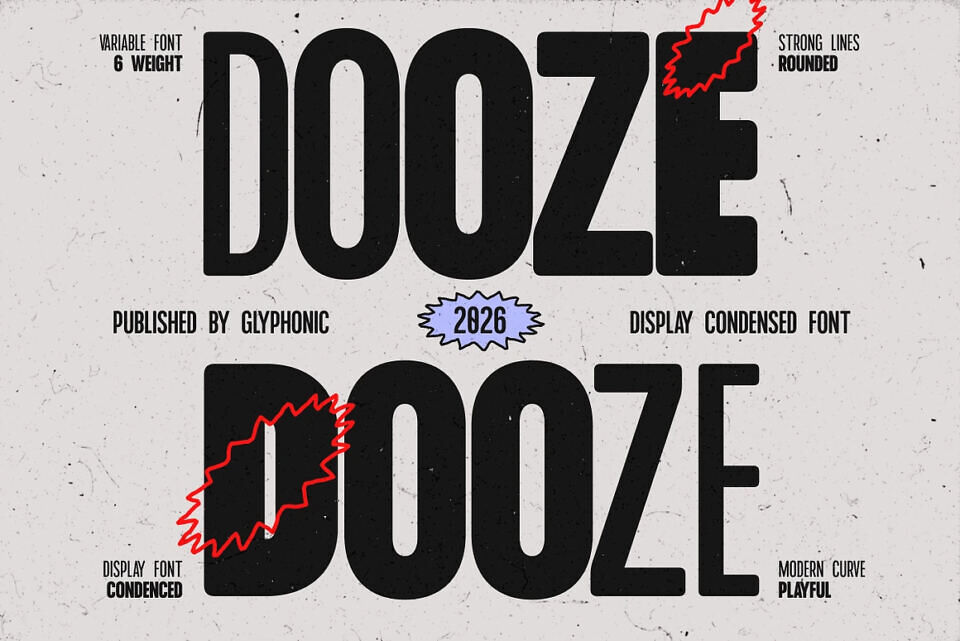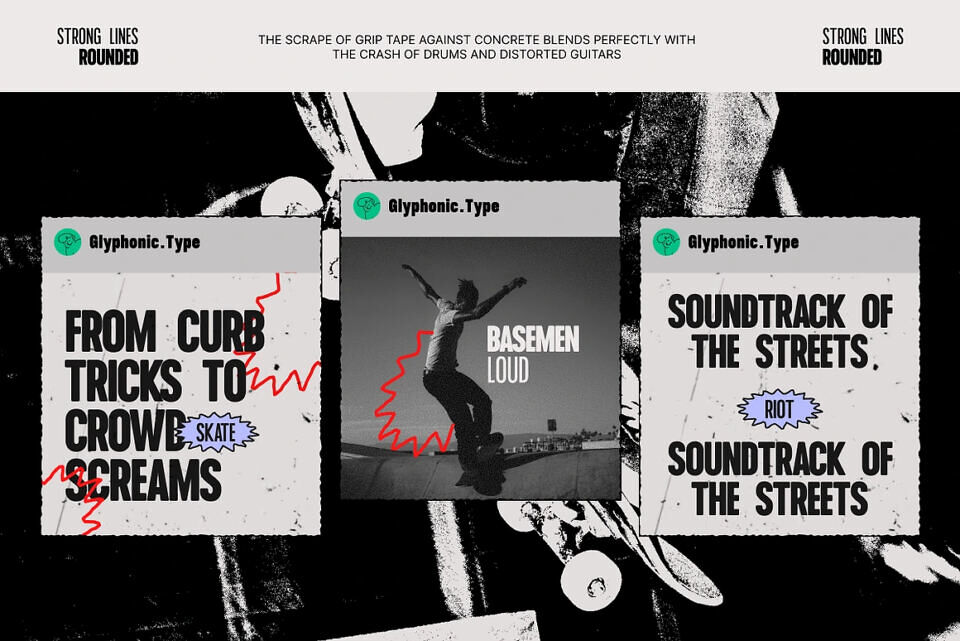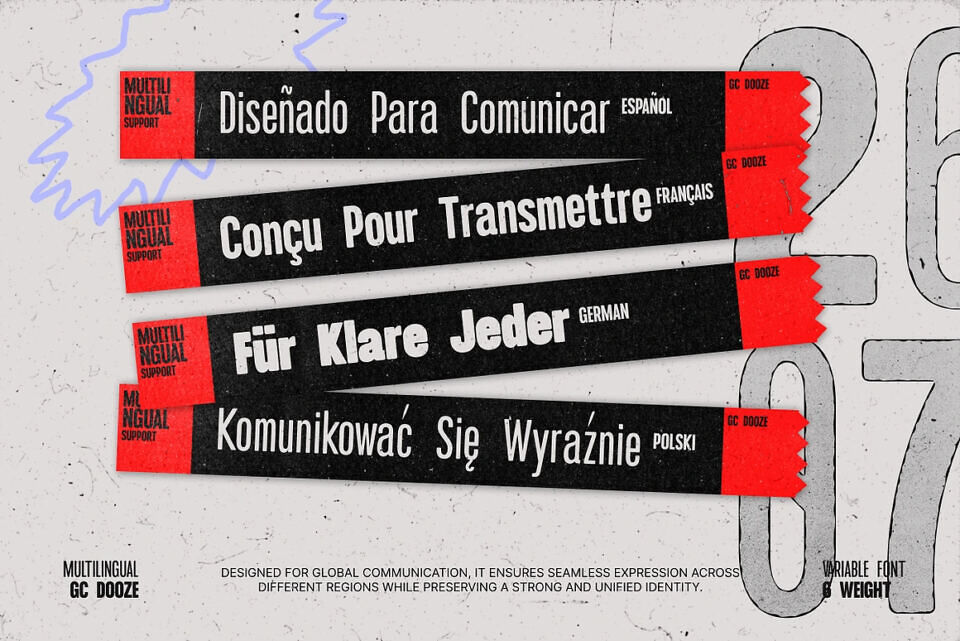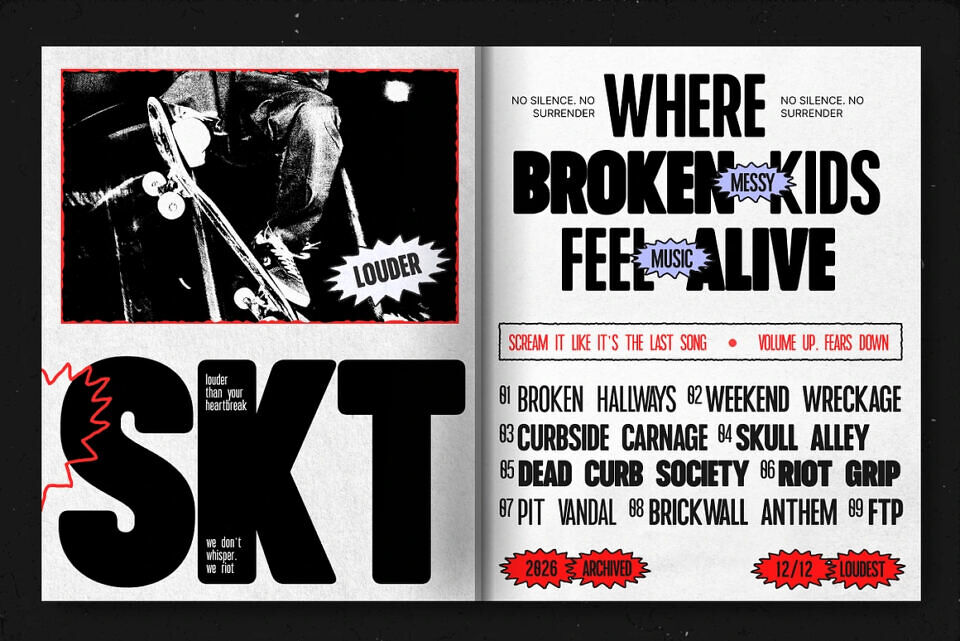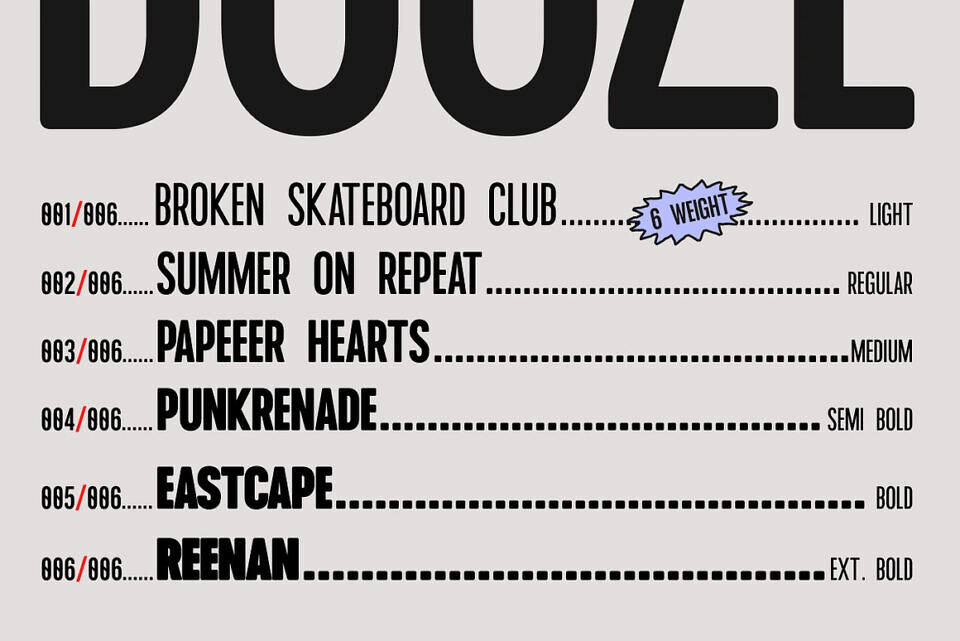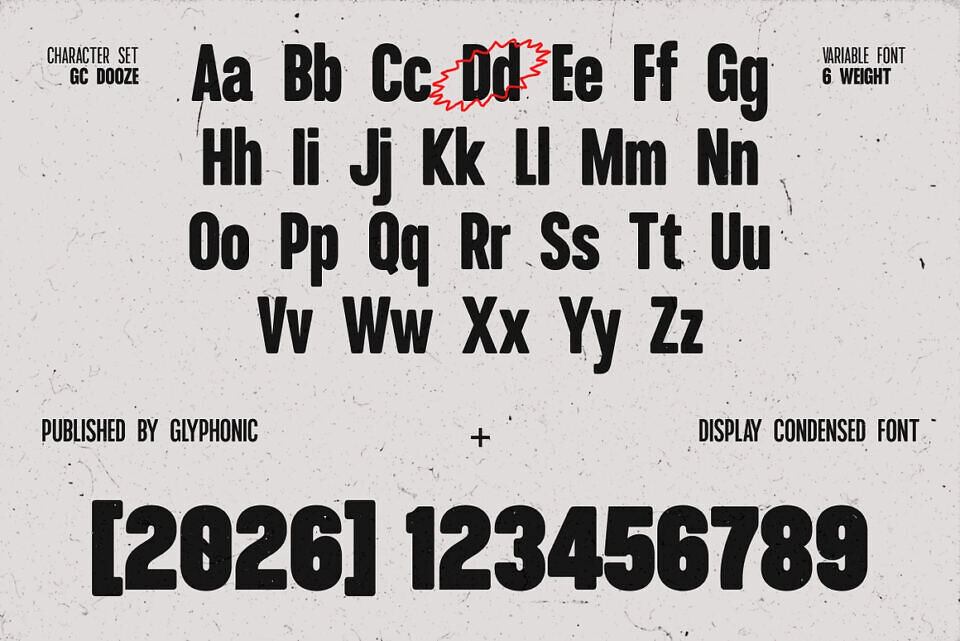
GC Dooze is a bold condensed typeface that combines strong vertical structure with smooth rounded edges, creating a distinctive balance between power and playfulness. Designed to stand tall and command attention, Dooze delivers a striking visual presence while maintaining a friendly and modern tone.
Its condensed form maximizes space efficiency, making it perfect for tight layouts without sacrificing impact. Built as a variable font with multiple weight options, GC Dooze offers flexibility for designers to explore different levels of boldness while maintaining consistency across layouts. From heavy, impactful headlines to slightly lighter expressive compositions, Dooze adapts seamlessly.